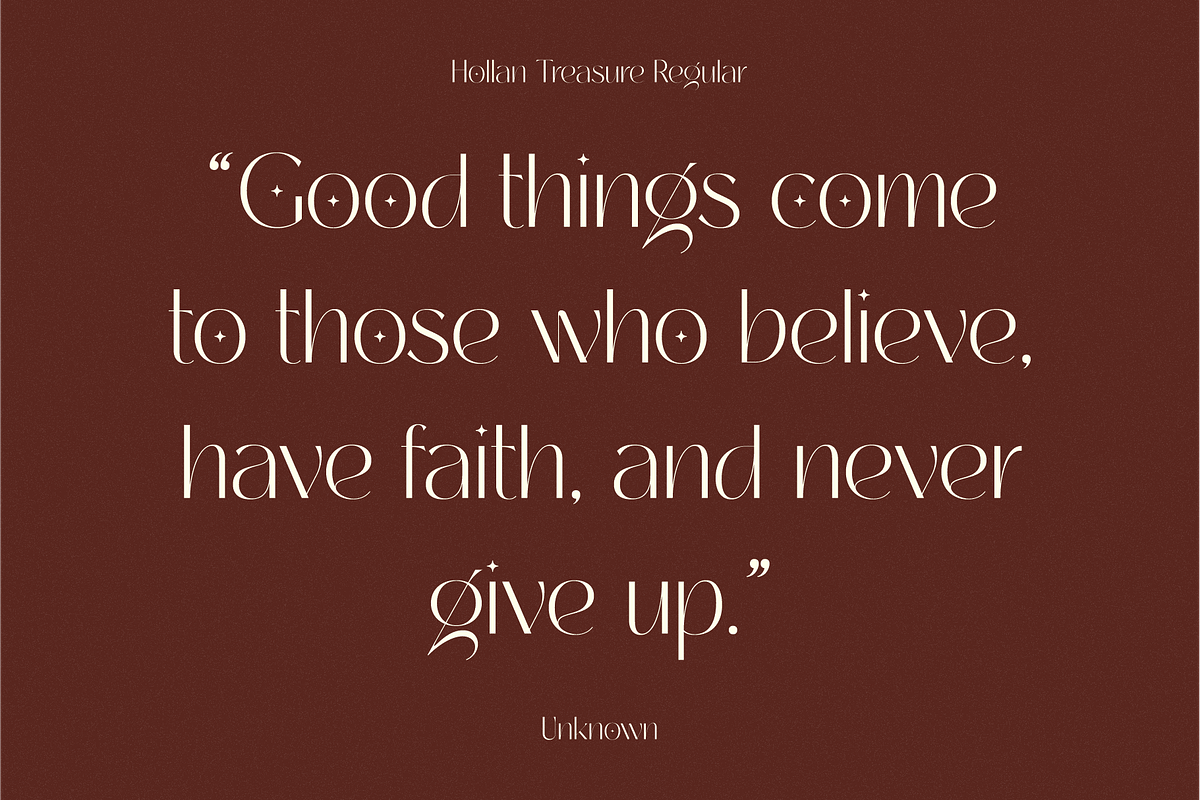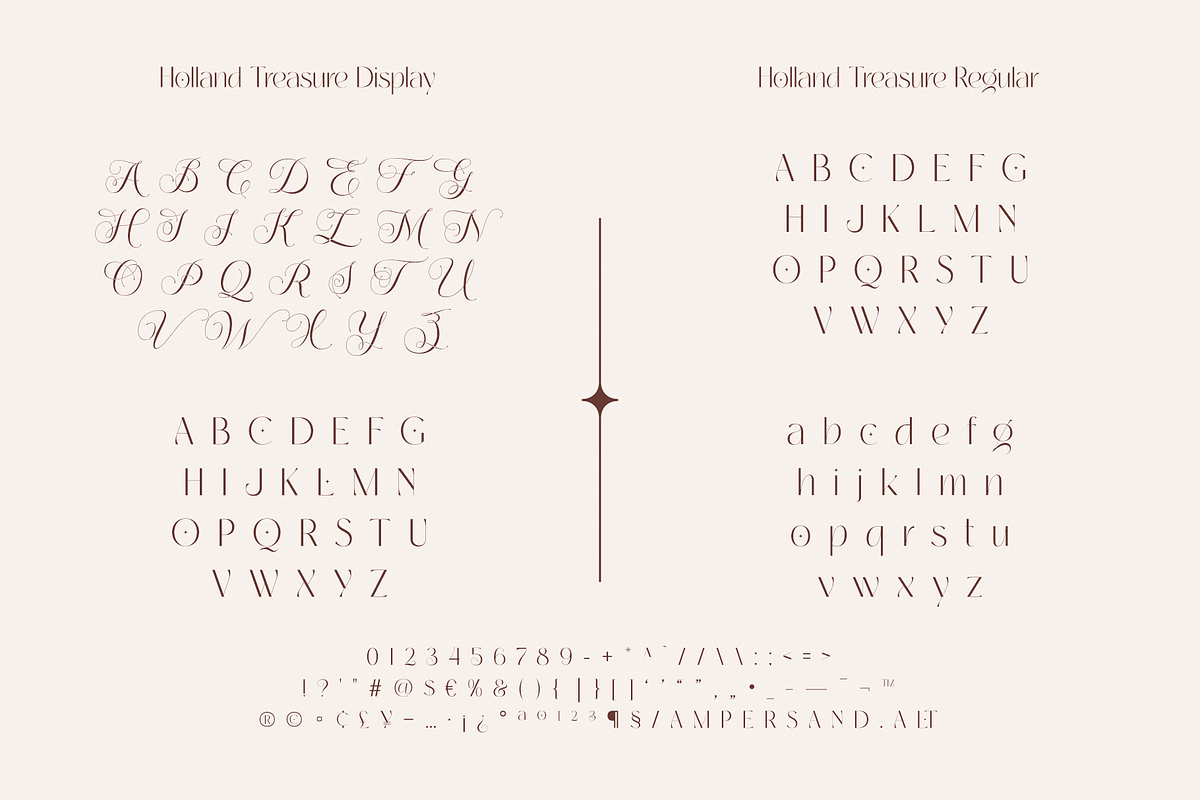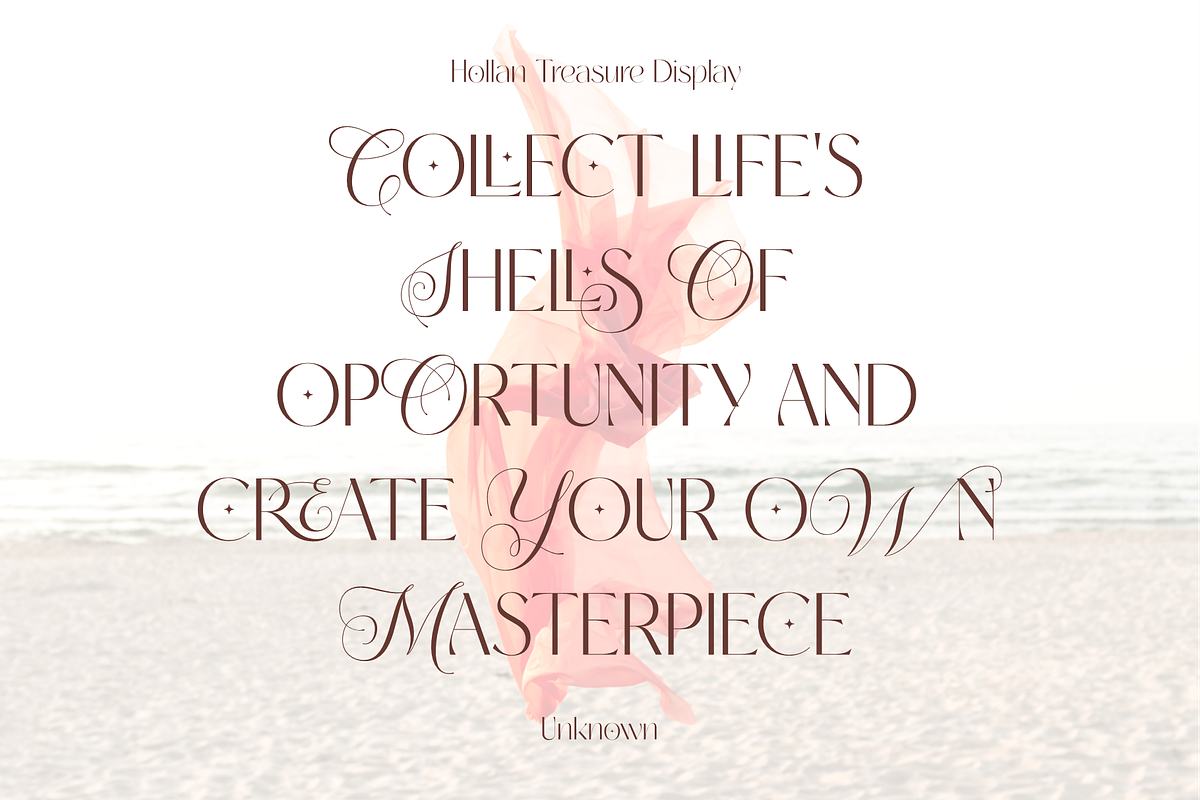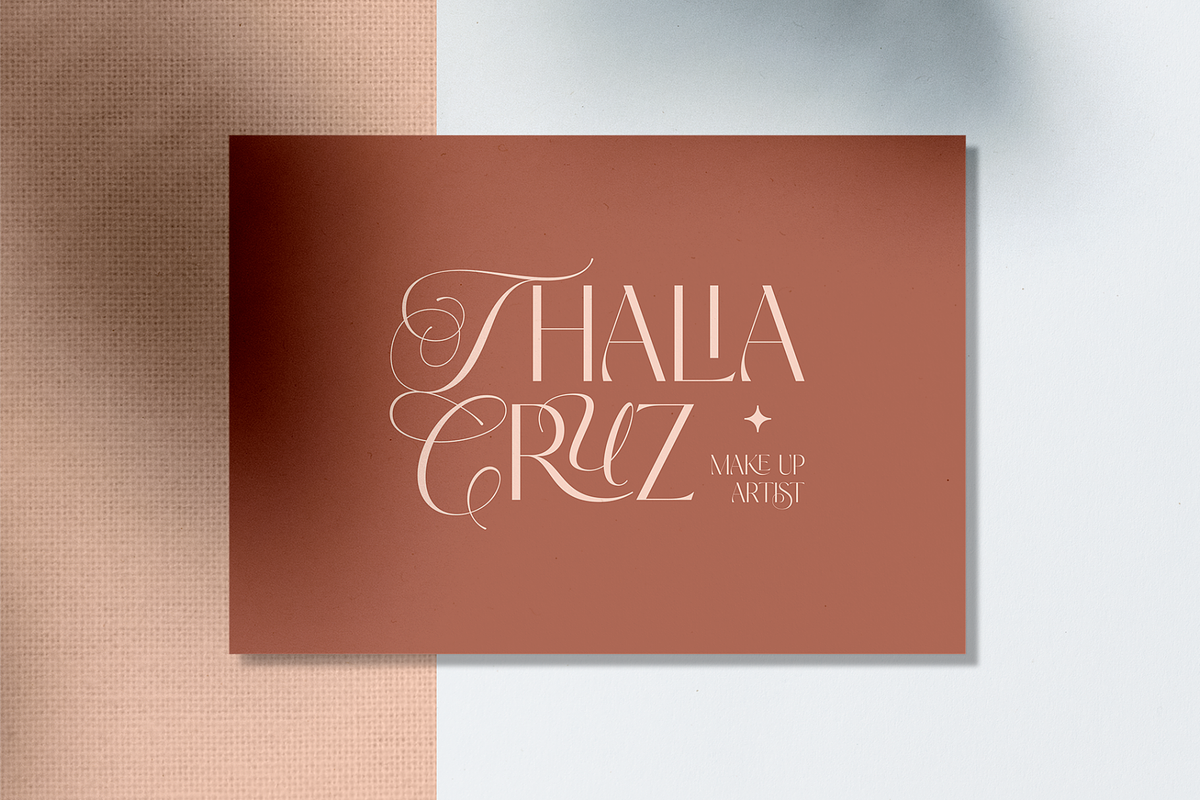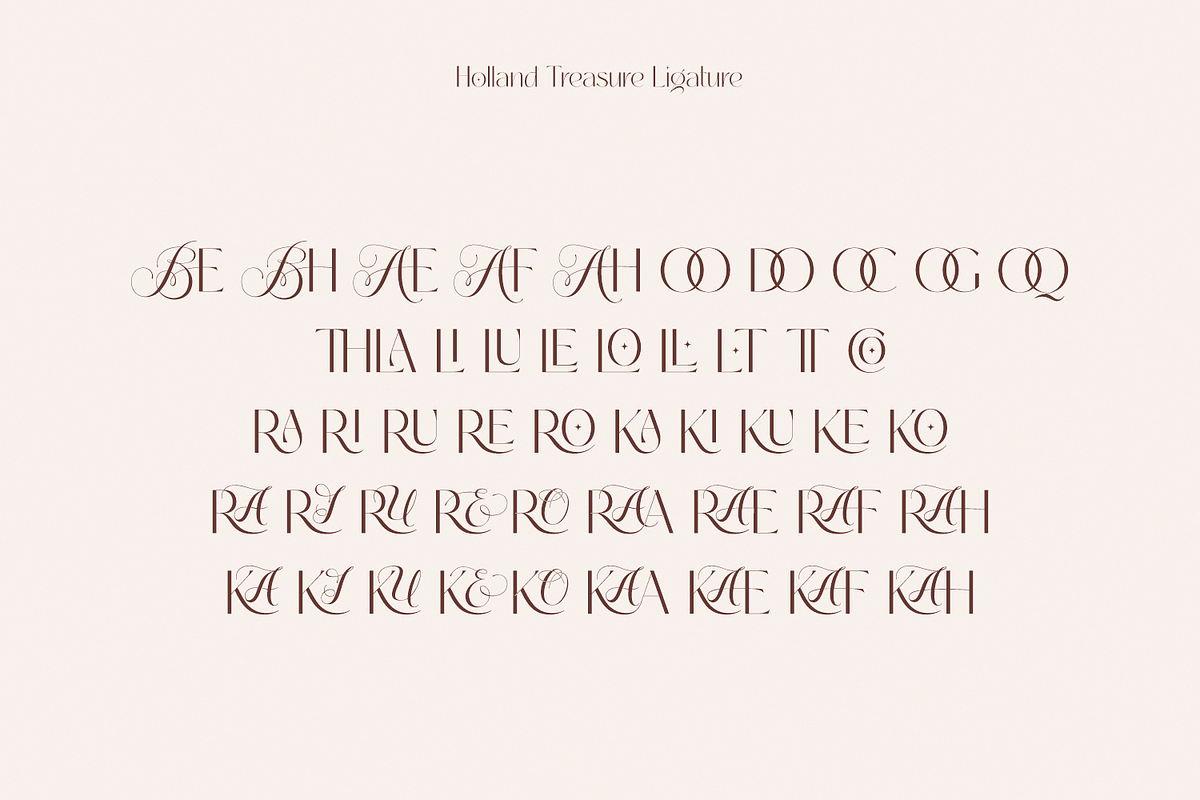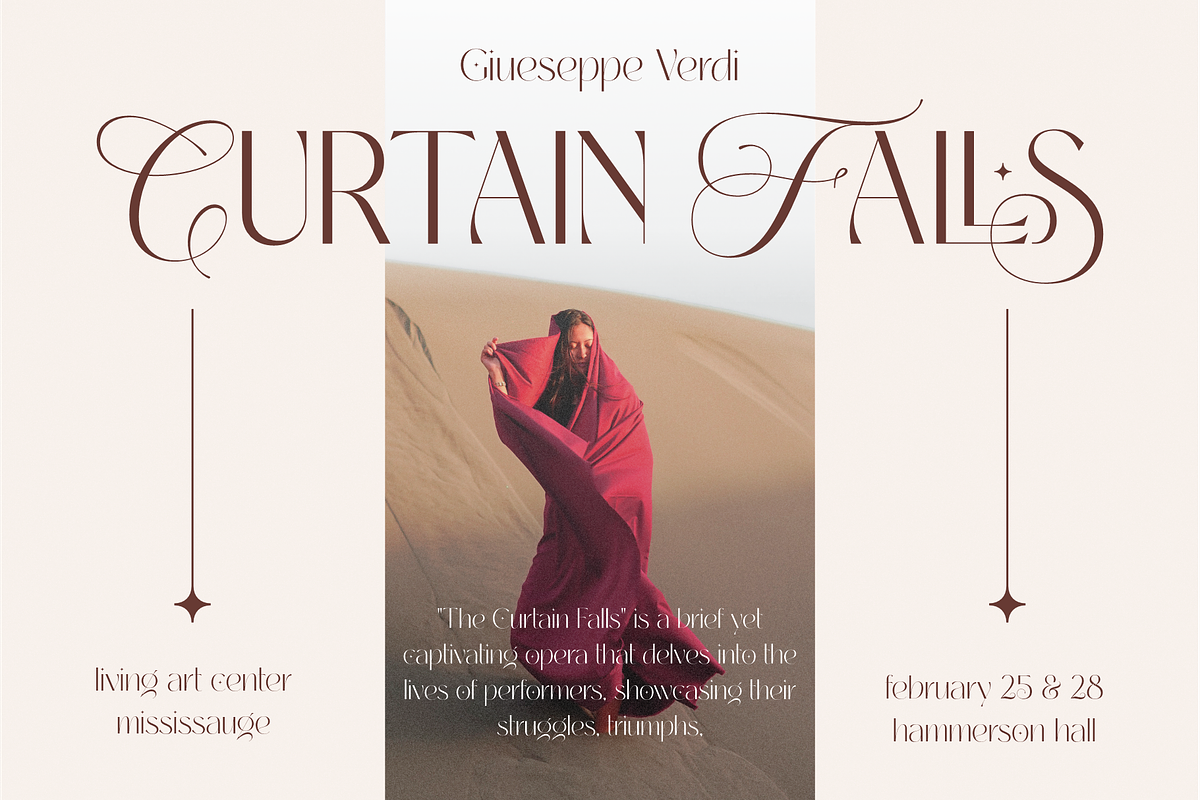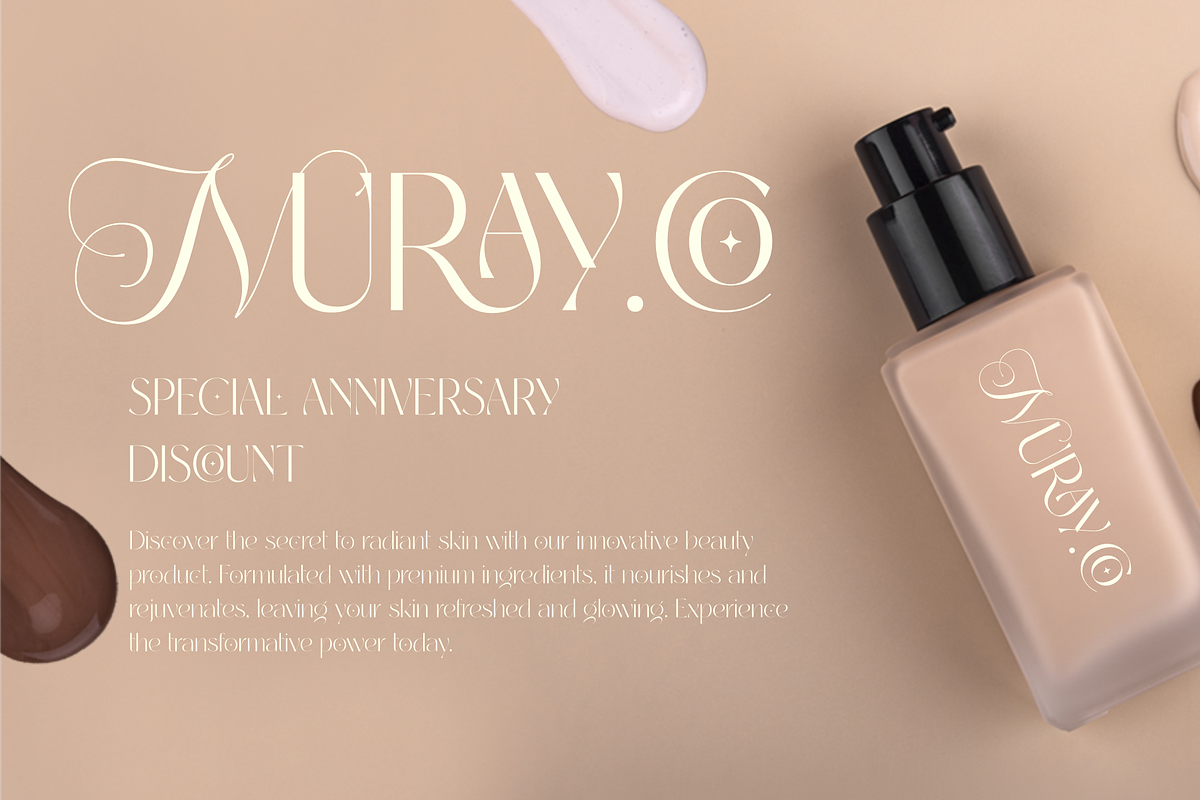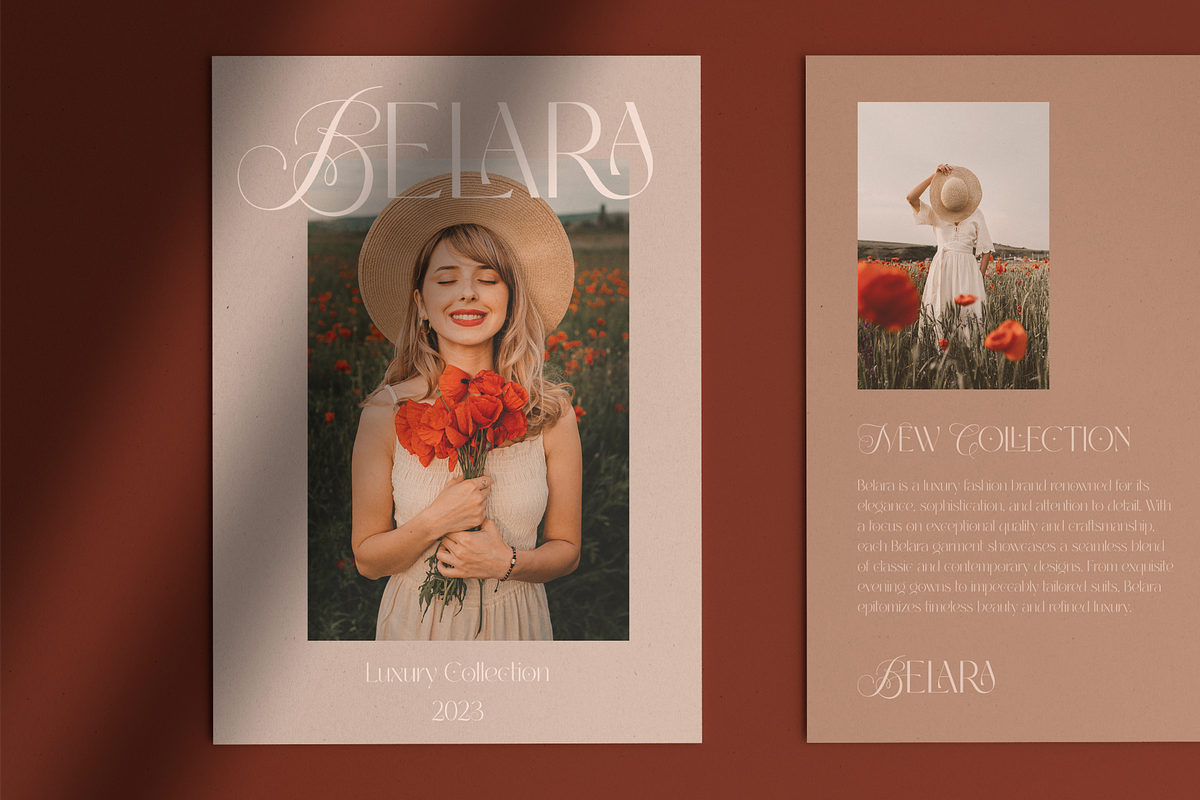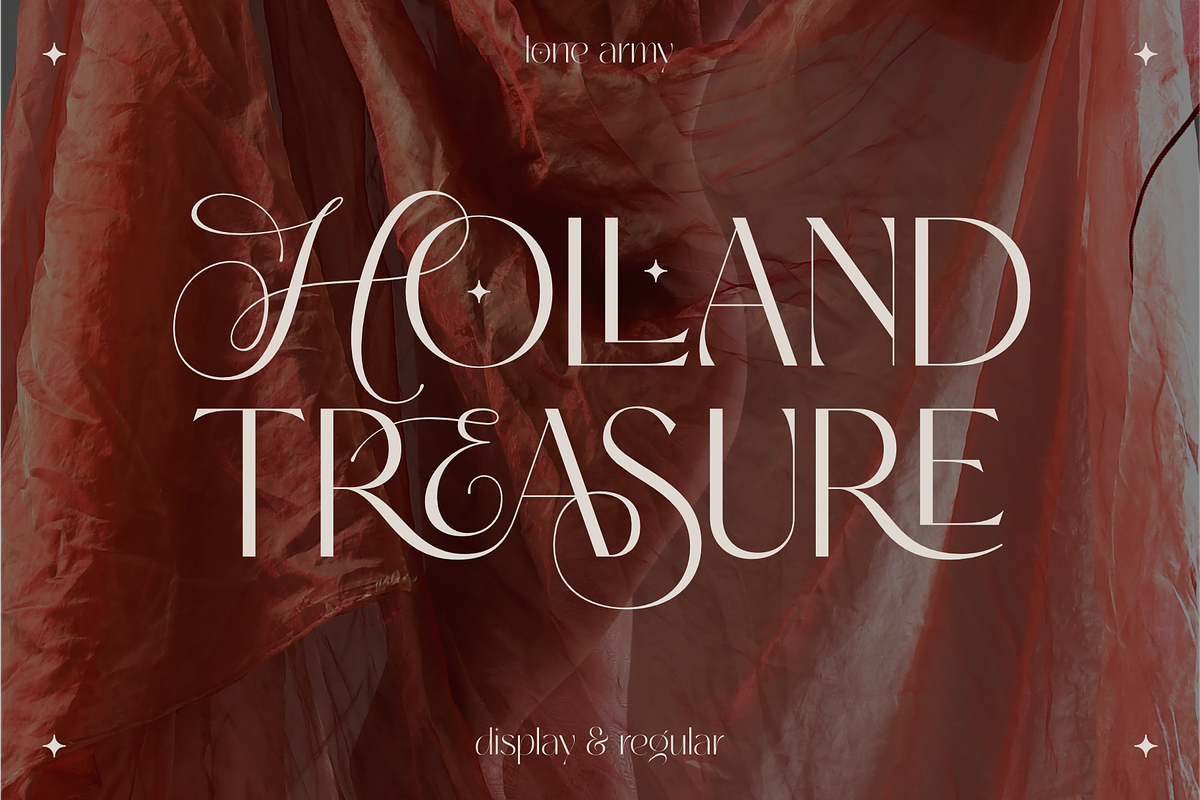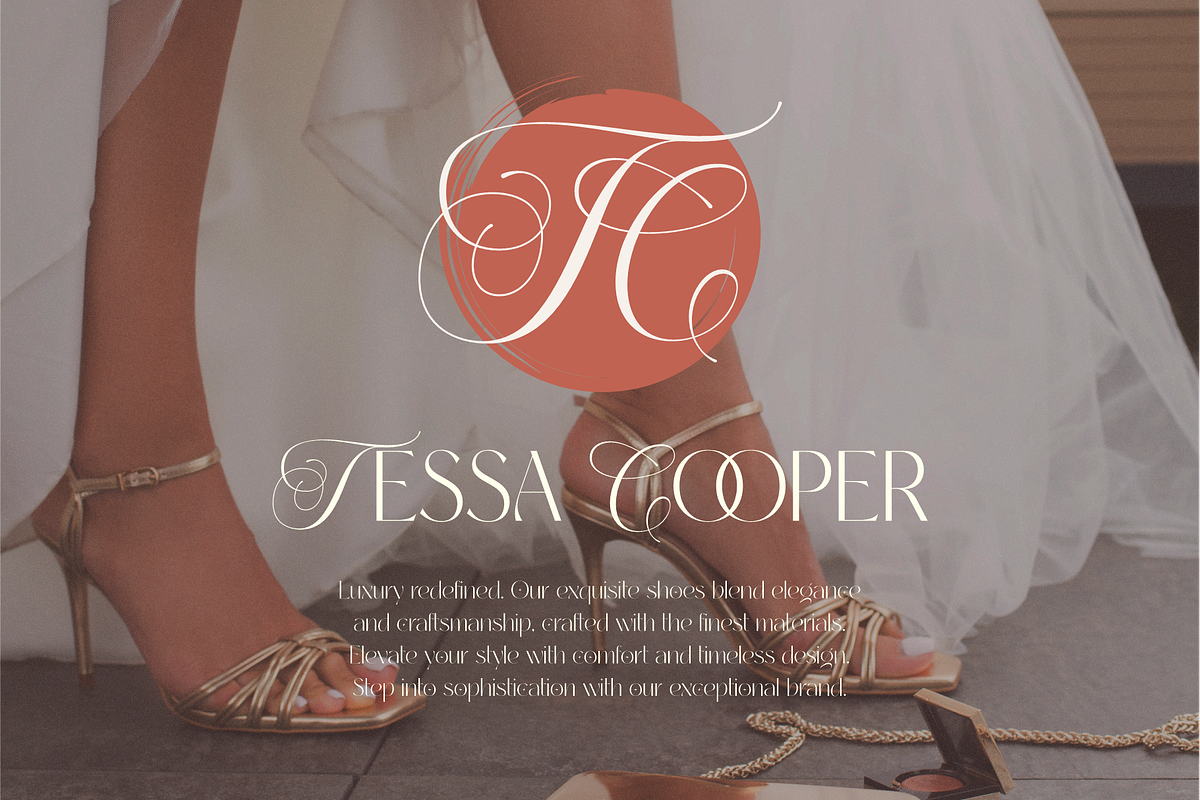
Holland Treasure - Display & Regular
Introducing Holland Treasure, a hybrid font that merges script and sans serif styles. With two variations, Holland Treasure Display and Holland Treasure Regular, this font set is designed for both display and text purposes. Experience the modern luxury of Holland Treasure as it adds elegance and sophistication to your designs.